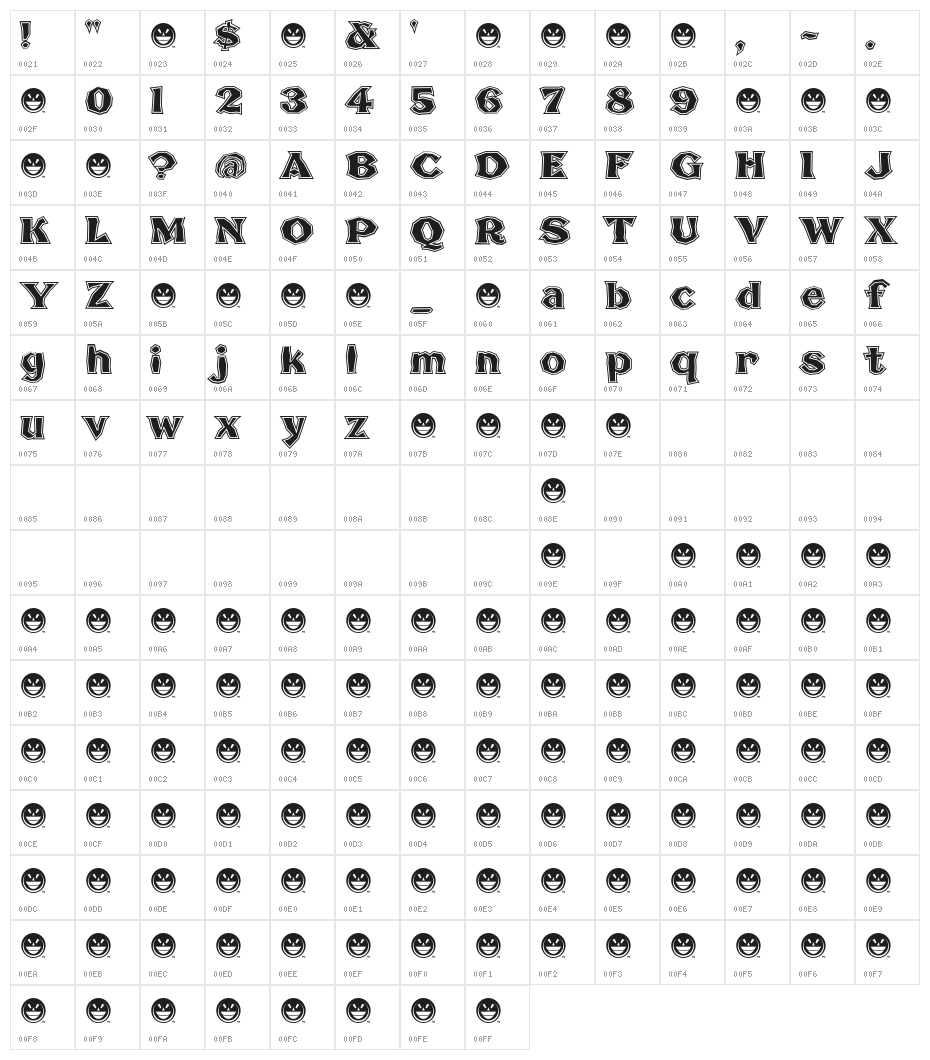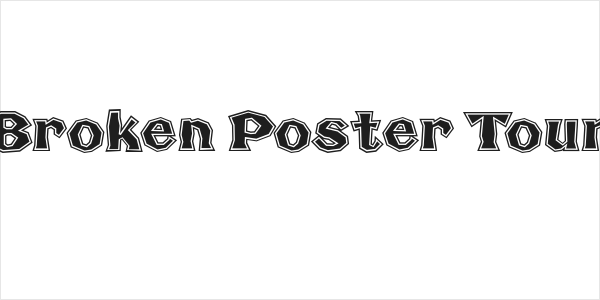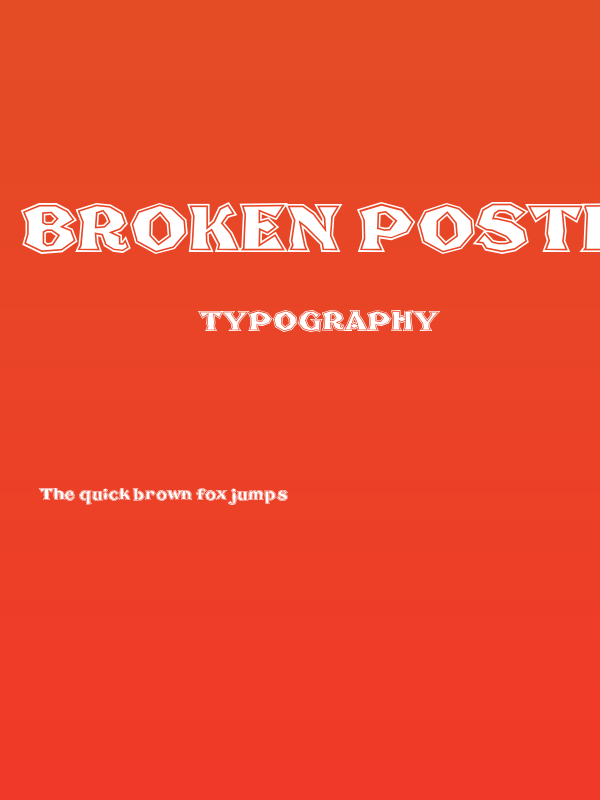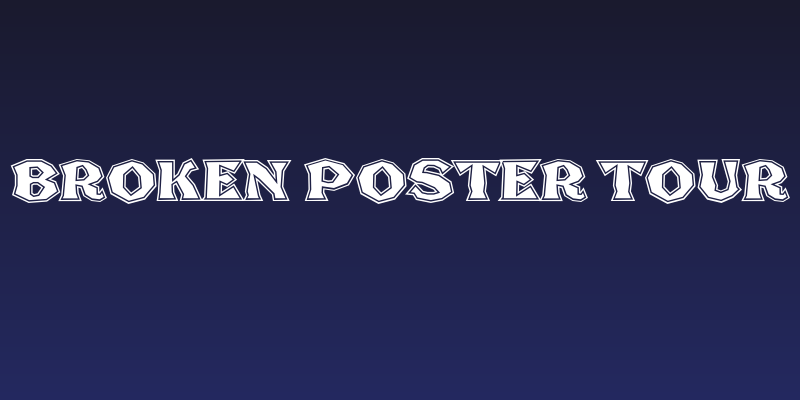
Broken Poster Tour Font
Broken Poster Tour Description
This font features a bold, edgy design with a distinct outline that gives each character a three-dimensional appearance. The uppercase and lowercase letters maintain a consistent style, characterized by sharp angles and a slightly distressed look, which adds a touch of ruggedness. The numbers and special characters follow the same aesthetic, ensuring uniformity across all glyphs. This font's unique style makes it stand out, perfect for grabbing attention and making a statement.
| Use Case | Headlines, Posters, Branding |
| Proposed Projects | Ideal for music posters, event flyers, branding for edgy products, or any project needing a bold, attention-grabbing typeface. |